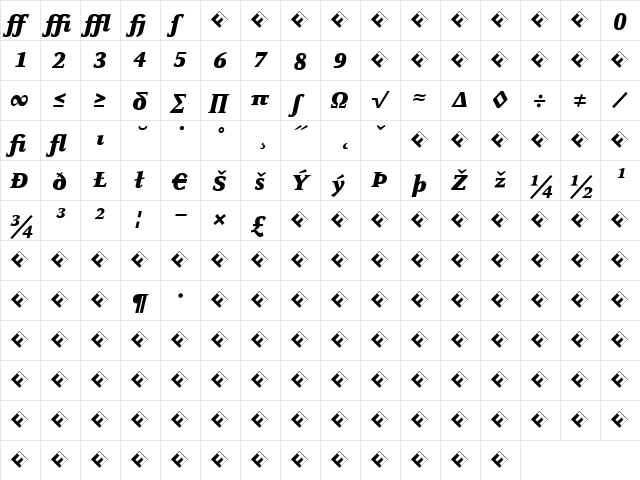
Celeste-BlackItalicExpert Italic
Design Context for Celeste-BlackItalicExpert Typeface
Celeste-BlackItalicExpert is a composed and adaptable typeface that performs quietly and consistently across a wide range of design contexts. The slanted form adds forward momentum and visual energy.
Pro Tip: Try Celeste-BlackItalicExpert for annotation and caption copy alongside an upright companion — the contrast in angle creates a dynamic but ordered typographic system.